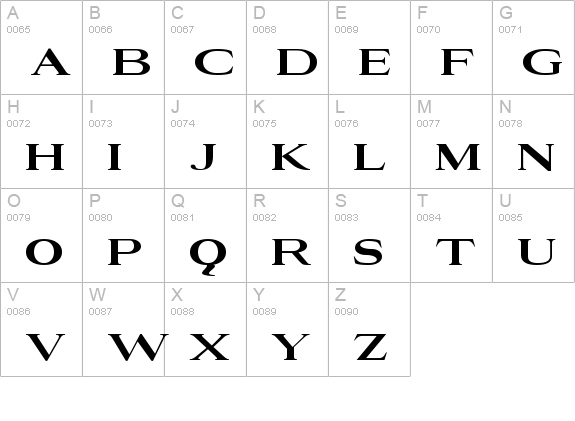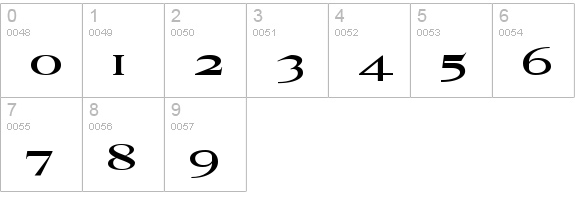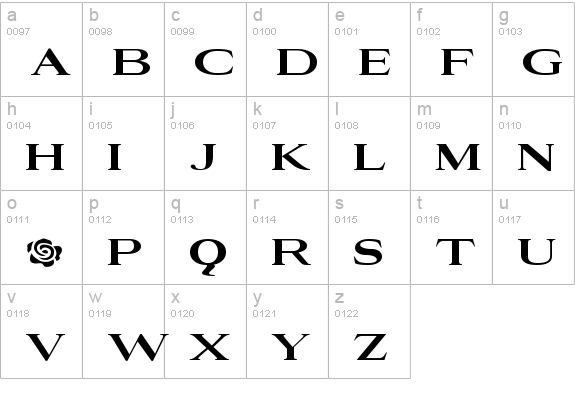
Rosegarden New Font Details
Rosegarden New is a donationware font in the General > Serif category, designed by Darrell Flood. It has been downloaded 199 times and is available for Windows, Mac and Linux.
Introducing Rosegarden New font, a delightful and elegant typeface that exudes charm and sophistication. This versatile font is perfect for adding a touch of class to any project, from invitations to branding materials. With its graceful curves and stylish appearance, Rosegarden New font is sure to make a lasting impression.